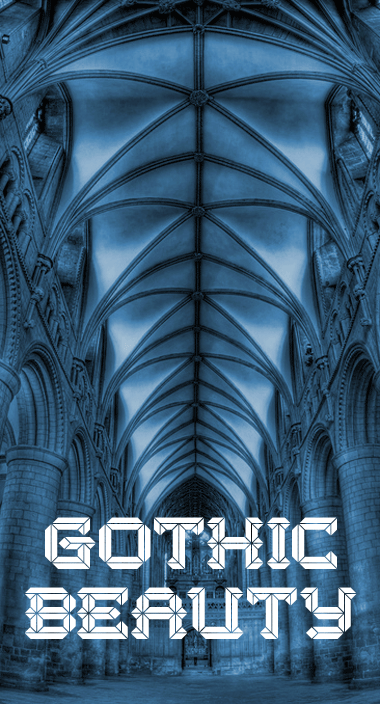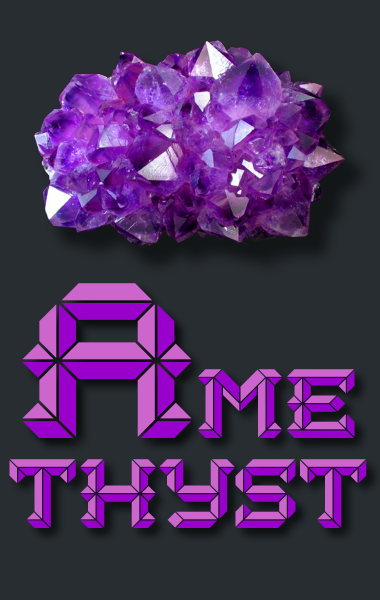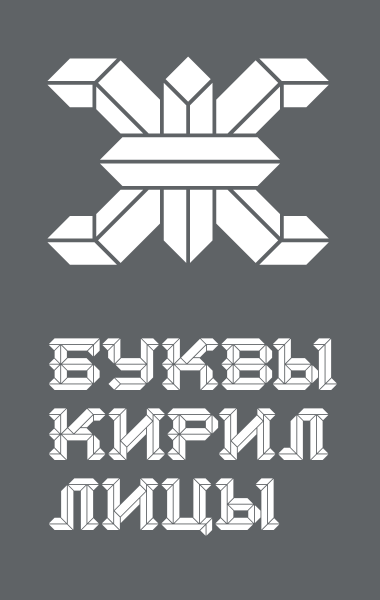
Inline beauty, maestro!
Oh, what a beautiful work. I think the letter X/x looks a bit different from the rest. But it's so nice and really gothic / architectural.
Very stylish architectural look. I love the X and the *
Fave. I really love this, but I'm not sure it's an inline font. I had designed something in a similar style, but thought it wouldn't be accepted. So I'm saving it for another time.
Wonderful - as with so much of your work, it pays to look at the full size for the detail.
just wonderful
Incredible!
Crystal!
Glad you found time for the comp. A splendid work!
you have the power to take complex pattern and made it simple to read .. Bravo
love it. geometric inline. an inventive entry. good luck.
Congratulations! FontStruct Staff have deemed your FontStruction worthy of special mention. “Ecthelion ” is now a Top Pick.
Was this your inspiration?
Or this? Yours is much better. :)
great job
Very cool! :D
That font is pretty awesome!
cool!